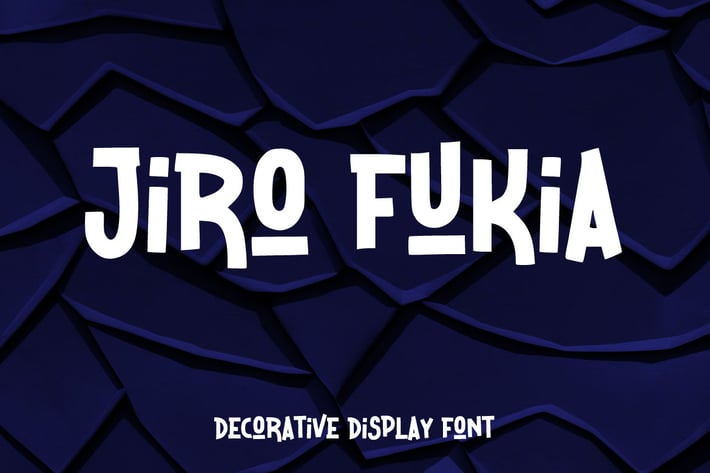
Jiro Fukia - Decorative Display Font
Introducing Jiro Fukia, a fun and vibrant decorative display font perfect for adding a touch of playfulness and creativity to your projects. This unique typeface features whimsical curves, quirky lines, and delightful embellishments, making it an ideal choice for children’s books, greeting cards, party invitations, and more.
Each letter is crafted with care, incorporating fun elements that bring joy and excitement to your text. Perfect for a variety of projects, from logos and branding to social media graphics and posters. Elevate your design projects with Jiro Fukia, the perfect decorative display font to bring a smile to every face. Download now and start creating magic!